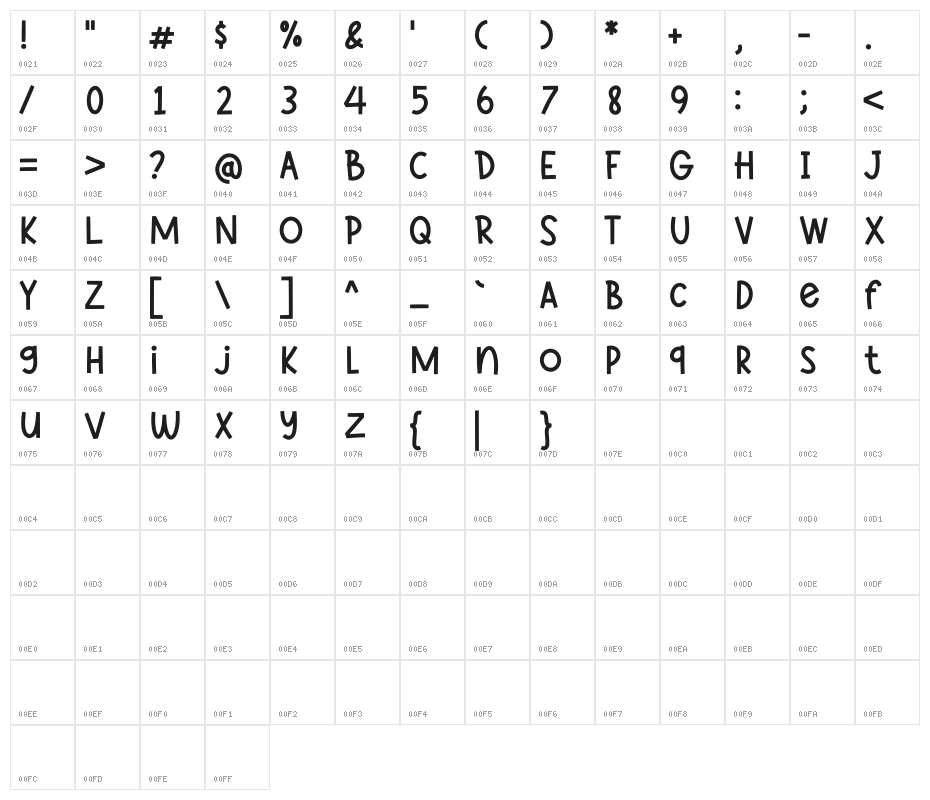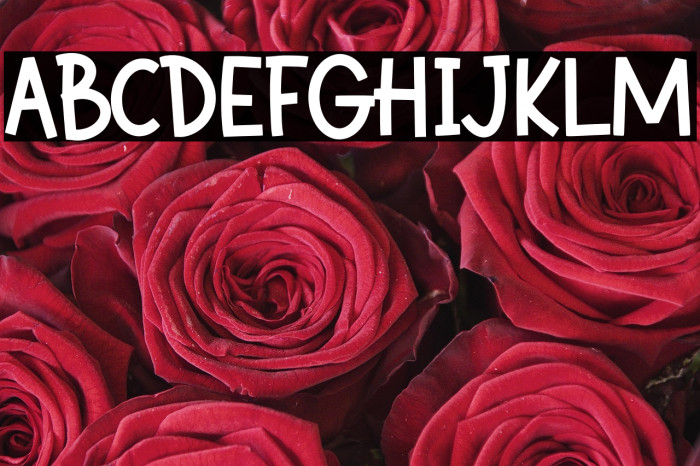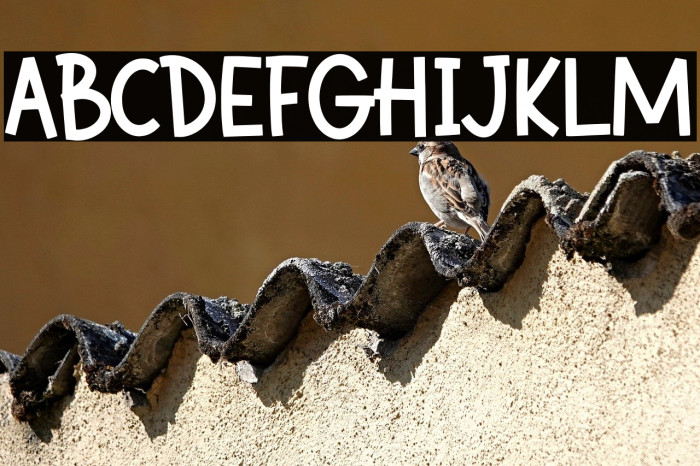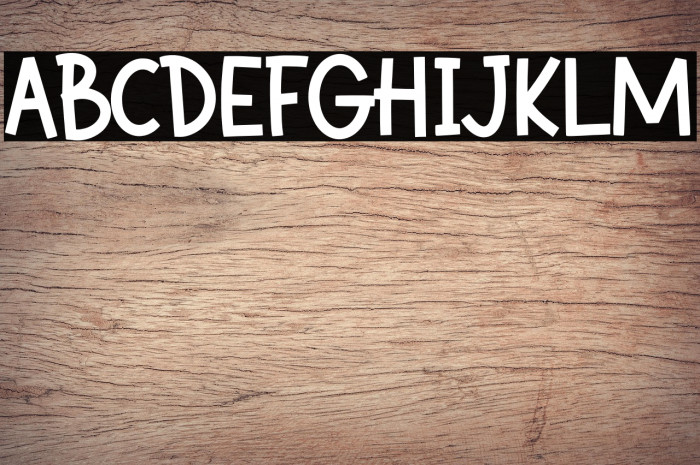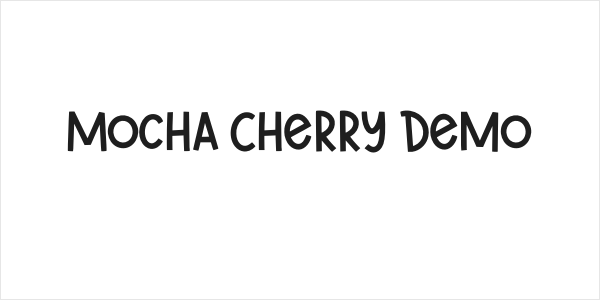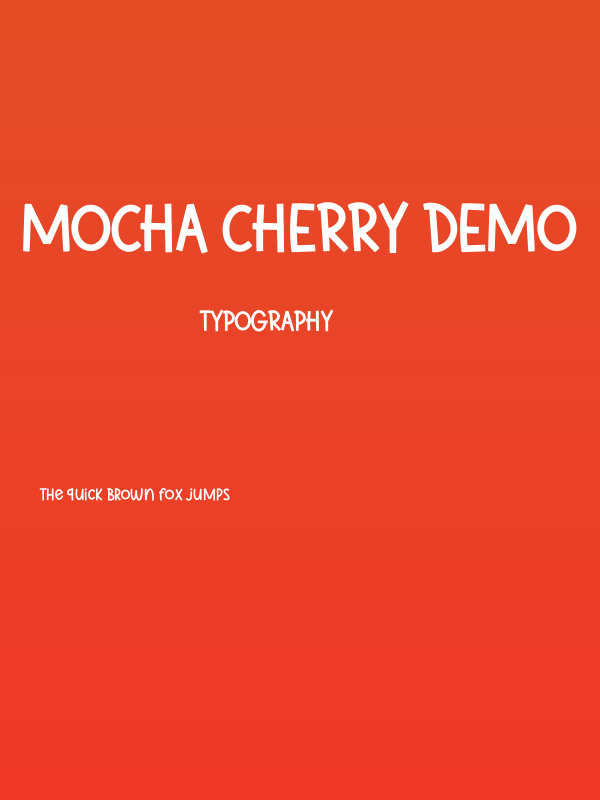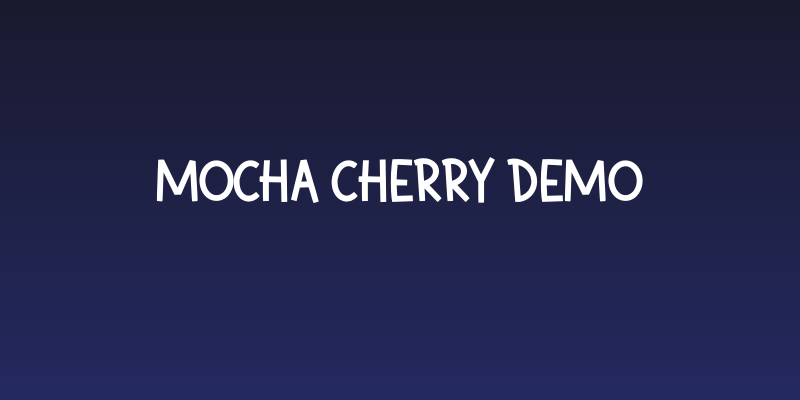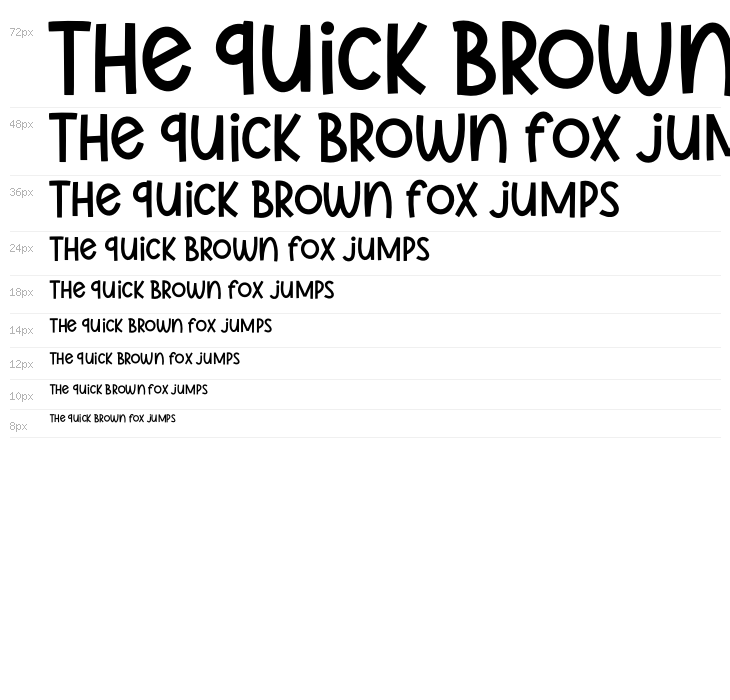
Mocha Cherry Demo Font
Mocha Cherry Demo Description
This font features a playful and bold style with a handwritten appearance. The characters are slightly irregular, adding a whimsical touch that makes it stand out. The uppercase letters are tall and slightly narrow, while the lowercase letters maintain a consistent height, creating a harmonious balance. The numbers are bold and easy to read, matching the overall playful theme. Special characters are creatively designed, maintaining the font's unique style. This font is perfect for projects that require a fun and informal look.
| Proposed Projects | Ideal for children's books, playful branding, greeting cards, and casual invitations. |